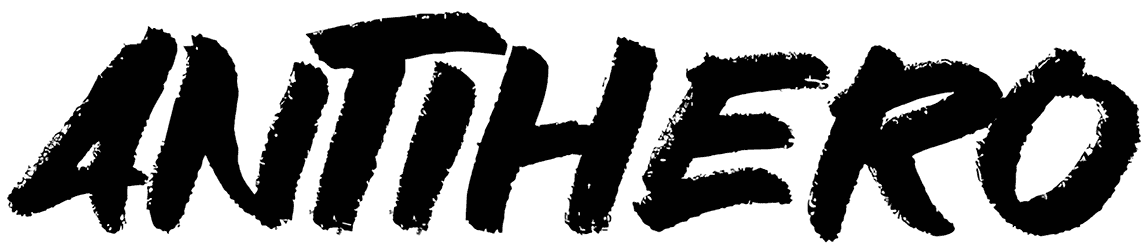
Antihero Font
Let’s try a sweet and minimal face for your stylish design and show off your creative mind. Antihero is a script font with a real and relaxed mood that is nicely fit for various topics.
Place this brush font on your upcoming projects, from banners and posters to social media posts, and create an eye-catching mood. Although this masterwork doesn’t contain lowercase letters, it leaves no stone unturned in accentuating your design.